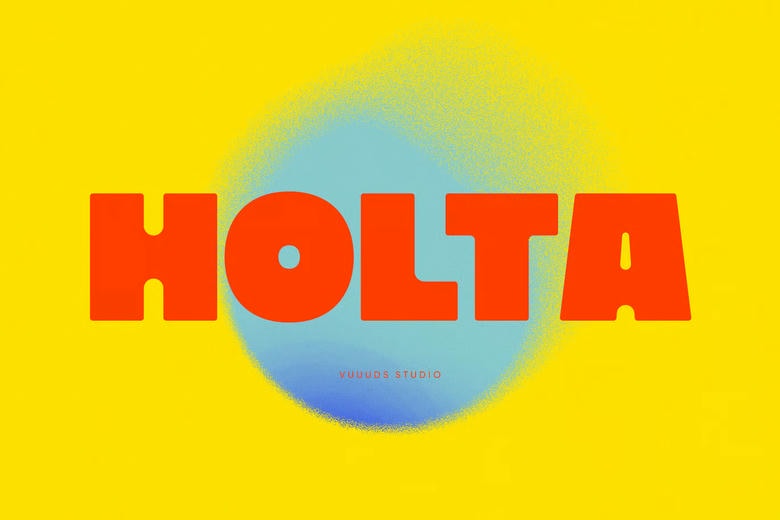
Holta Font
Holta is a bold, heavy display font that brings a playful touch to your designs. Its thick, friendly letters give any project a fun and confident look. It is for standout titles, restaurant menus, bold logos, colorful posters, modern branding, or eye-catching packaging.
Holta Display Font